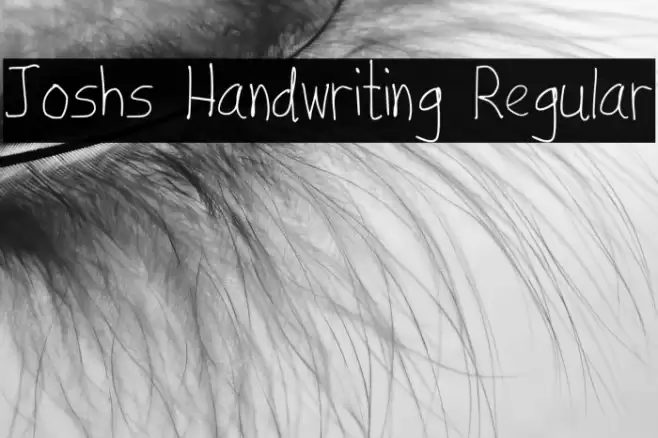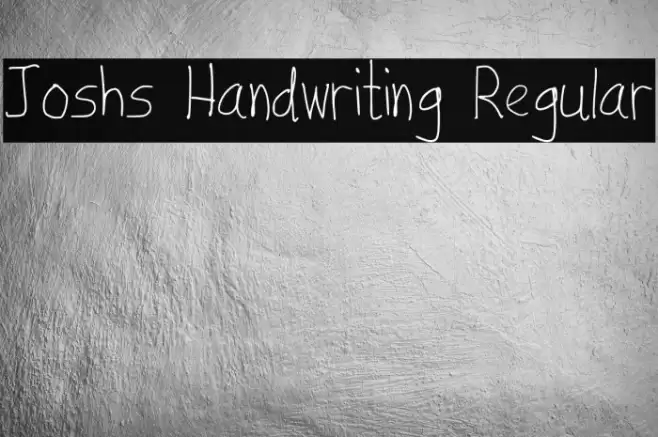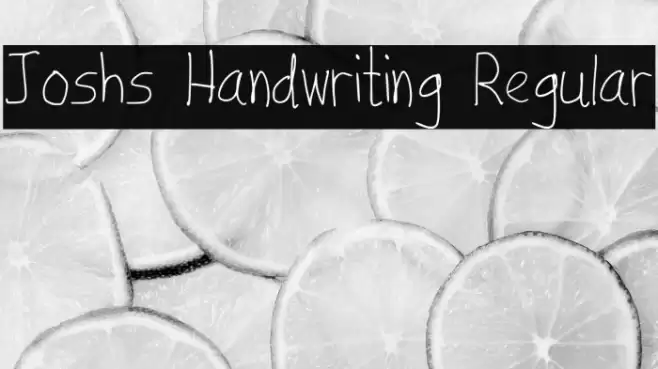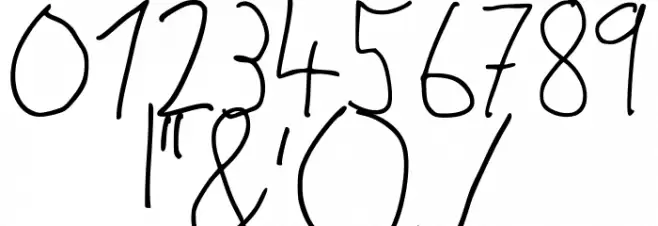
Joshs Handwriting Regular Font
Joshs Handwriting Regular Description
This font embodies a casual and personal touch, reminiscent of handwritten notes. The characters are unevenly spaced, with a playful and informal style. The strokes are thin and slightly irregular, adding to the authentic handwritten feel. Each letter has a unique flair, with some characters leaning slightly, enhancing the natural, unrefined aesthetic. The numbers and special characters maintain this informal style, making the font suitable for creative and personal projects.
A casual, handwritten-style font with thin, irregular strokes from Regular fonts.
- Proposed Projects: Ideal for personal notes, creative projects, greeting cards, and informal invitations.
- Character Spacing: Irregular
- Overall Style: Casual
- Use Case: Creative projects, Personal notes